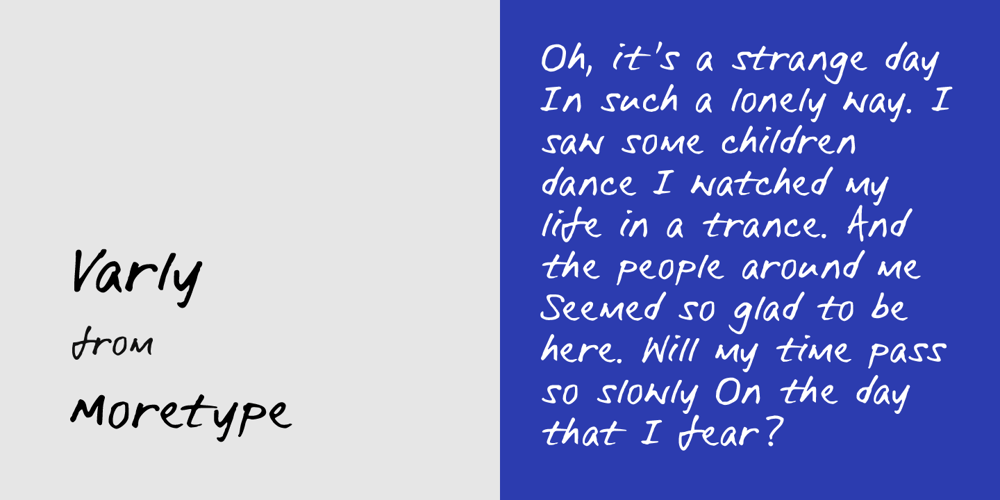
Varly Font Family was designed by published by moretype. Varly contains 1 styles and family package options. Varly is a single weight handwritten style font. It’s slight slant and dynamic shapes create a font that is honest and charming but still lively enough to add flare. Varly can bring a personal touch to any project it is used in.